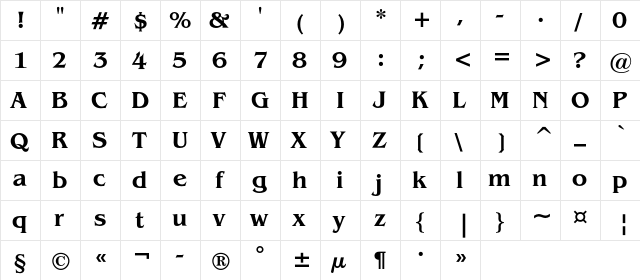
BeneficeAP Bold
Design Context for BeneficeAP Typeface
BeneficeAP is a composed and adaptable typeface that performs quietly and consistently across a wide range of design contexts. The heavy weight commands attention and anchors typographic hierarchies.
Pro Tip: Pair BeneficeAP with a font of contrasting weight or personality to build a more expressive typographic hierarchy.